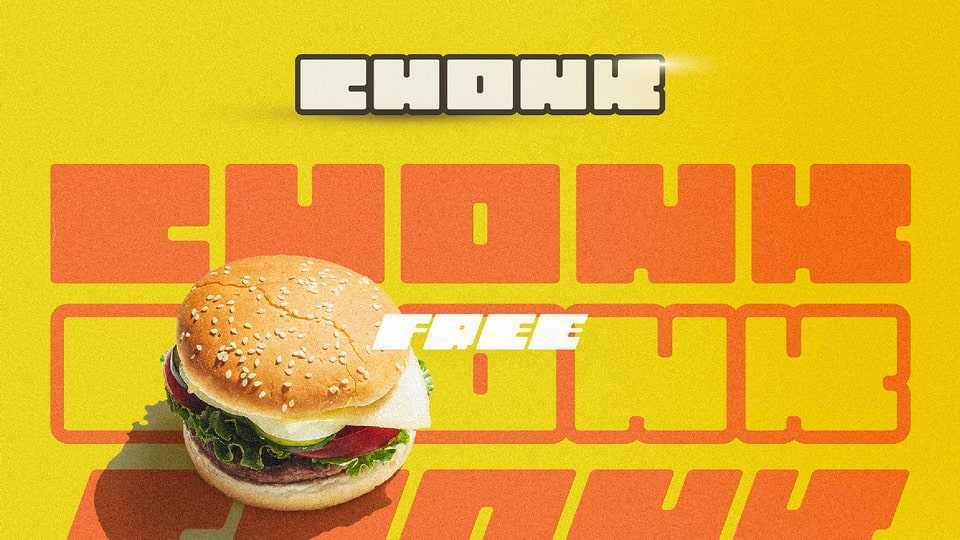
Download Chonk font, a display typeface with 4 styles that was inspired by the early 2000s. With its bold, eye-catching design, Chonk font is perfect for creating striking visuals, large headlines, posters and impressionable typography.
Designer: Noah Sykes